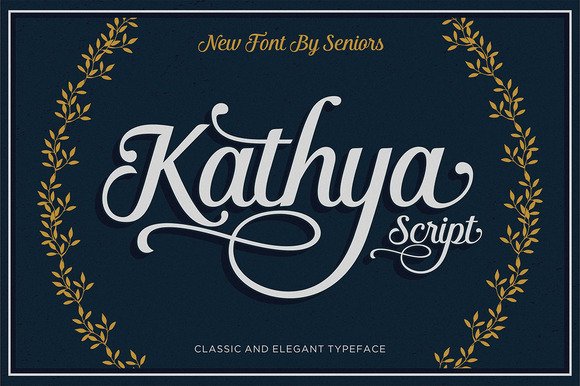
Kathya Script
Kathya Script is a contemporary calligraphic typeface, a mixture of retro script and modern sans serif. get a classic and elegant touch. With almost 430 glyphs and 176 alternate characters, multiple language support, the choice of useful ligatures, swash and more.